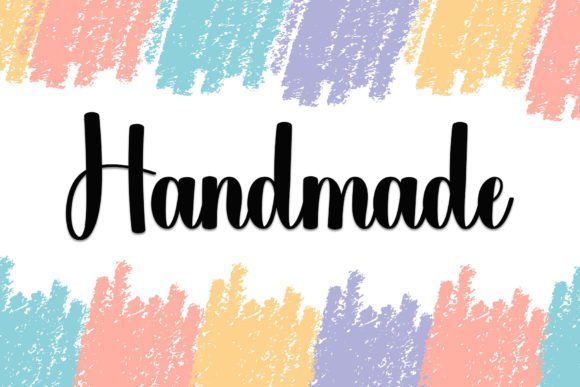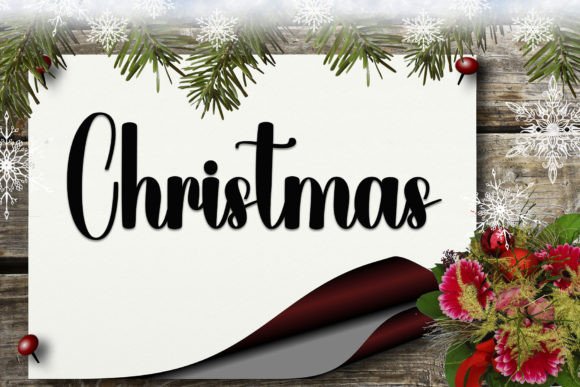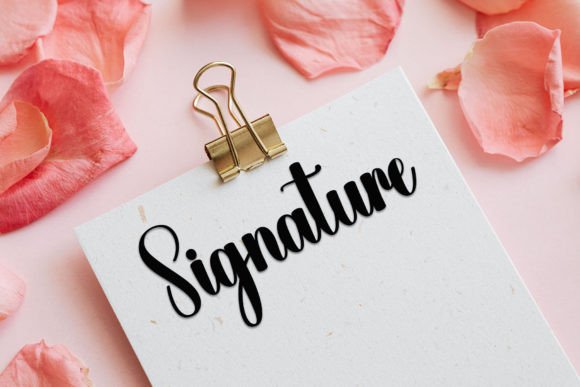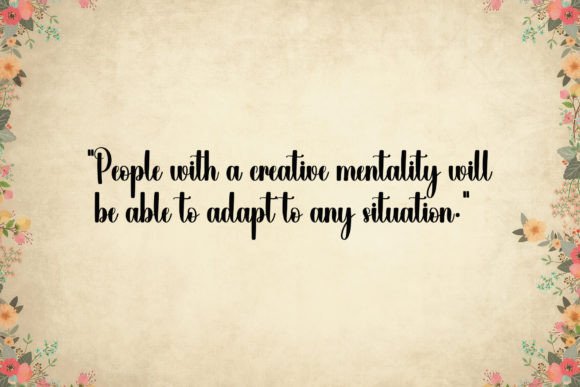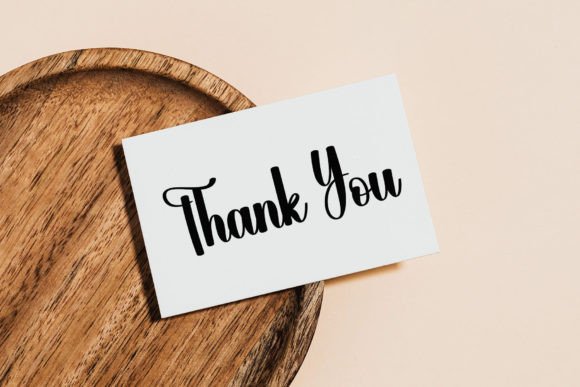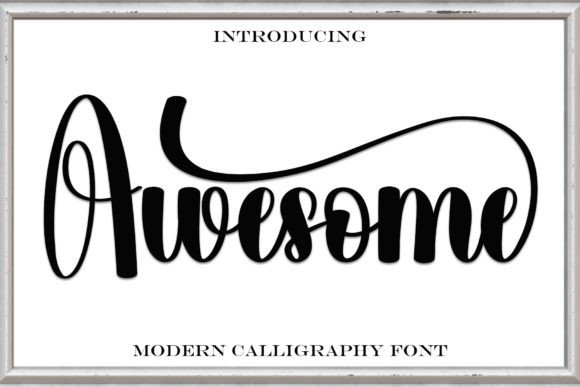
Introducing Awesome Font: Elevate Your Designs with Timeless Elegance
In the world of typography, fonts play a crucial role in conveying the tone and personality of a design. For designers and crafters seeking to add a touch of sophistication and class to their projects, the Awesome Font is an excellent choice. This trendy handwritten font boasts a contemporary atmosphere and impeccable form, drawing inspiration from timeless classic calligraphy.
The Story Behind Awesome Font
Awesome Font is a carefully crafted typeface that blends traditional calligraphic techniques with modern design sensibilities. Its creators aimed to develop a font that would not only be visually stunning but also highly versatile, suitable for a wide range of applications. Whether you’re working on a logo, branding materials, invitations, or digital content, Awesome Font is designed to elevate your designs and leave a lasting impression.
Key Features of Awesome Font
• Trendy and Contemporary: Awesome Font features a fresh and modern design that will instantly update your projects with a stylish look.
• Handwritten Elegance: With its smooth, flowing lines and classic calligraphic flair, this font adds a touch of sophistication and refinement to any design.
• Impeccable Form: The font’s precise construction ensures excellent readability and legibility, making it perfect for both digital and print applications.
• Highly Versatile: Awesome Font can be used in a variety of contexts, from elegant headings and titles to body text and captions.
Design Applications for Awesome Font
Awesome Font’s versatility makes it an excellent addition to any designer’s toolkit. Here are some popular applications for this beautiful font:
• Logos and Branding: Create a lasting impression with a custom logo or branding materials that exude elegance and sophistication.
• Invitations and Events: Add a touch of refinement to your invitations, wedding stationery, or event marketing materials.
• Digital Content: Use Awesome Font to create engaging social media graphics, blog posts, or website headers that stand out from the crowd.
• Print Materials: Elevate your print designs, such as brochures, flyers, or business cards, with a font that commands attention and respect.
Tips for Using Awesome Font Effectively
To get the most out of Awesome Font, consider the following tips:
• Pair with Complementary Fonts: Combine Awesome Font with simpler fonts to create visual interest and hierarchy in your designs.
• Experiment with Colors: Take advantage of Awesome Font’s versatility by trying out different colors, from rich jewel tones to soft pastels.
• Play with Size and Scale: Use Awesome Font in various sizes to create visual emphasis and add depth to your designs.
Awesome Font is a stunning handwritten font that brings a touch of timeless elegance to any design project. With its contemporary atmosphere, impeccable form, and versatility, it’s an excellent choice for designers and crafters seeking to elevate their work. Whether you’re creating logos, branding materials, digital content, or print materials, Awesome Font is sure to impress. So why wait? Discover the power of Awesome Font and take your designs to the next level.